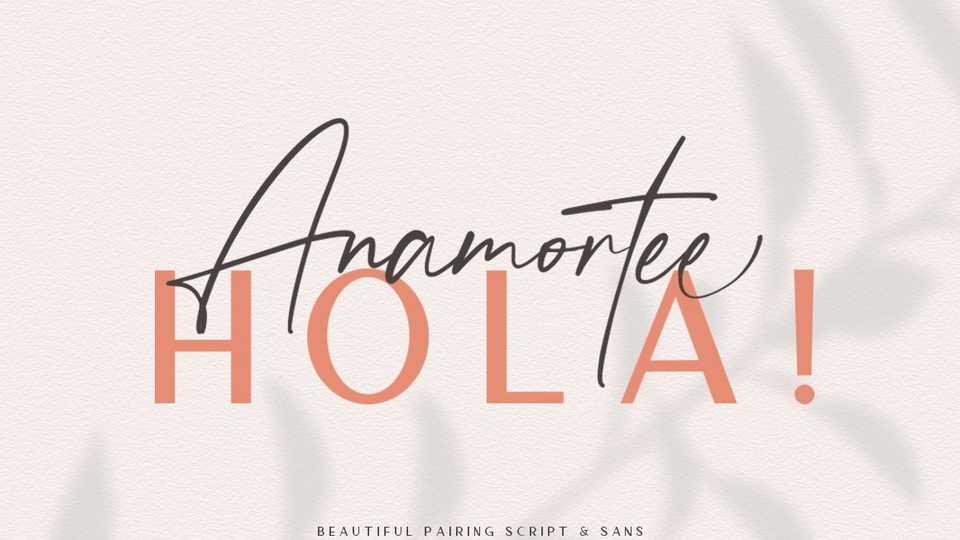
Download Anamortee font, a stylish signature script with a natural flow. Anamortee is perfectly suitable for magazine, movies, or book titles, photography and other projects from food and fashion to a cosmetics products.